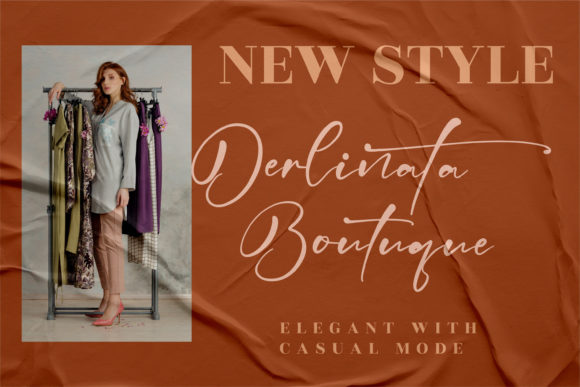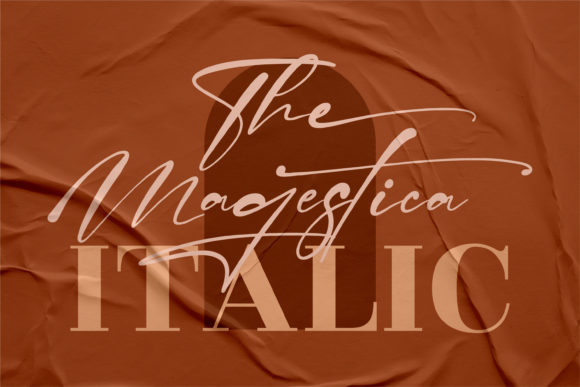
The Magestica Font
db-ku.com - Script & Handwritten -- The Magestica is a superb script font that looks naturally charming and authentic. It’s perfect for wedding invitations, birthday cards, thank you notes, and other projects that need a personal note!